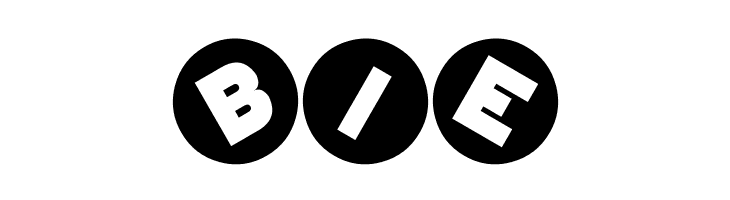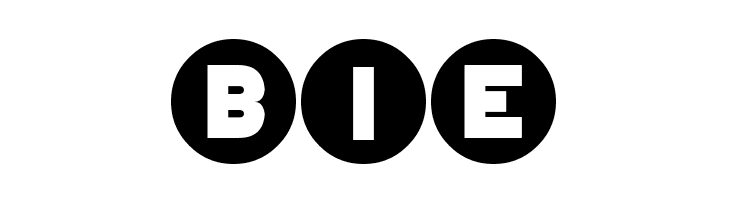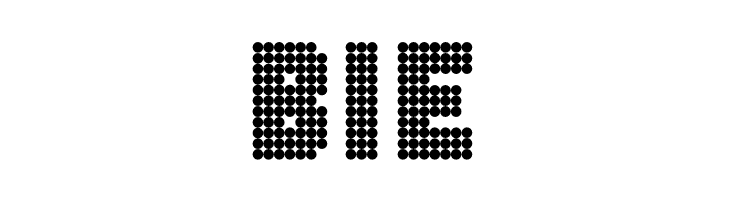
Magic Marbles Italic Font
Font by Darrell Flood
A bold, geometric font with characters enclosed in circles, offering a playful and modern look.
Professor Marbles 1_PersonalUseOnly Font
Font by dcoxy
A bold, bubble-like font with rounded, outlined characters.
Lost Marbles Font
A playful, dotted font with a unique and modern style.
Magic Marbles Font
Font by Darrell Flood
A bold, circular font with geometric, modern styling.
I HAVE LOST MY MARBLES Font
Font by
spideraysfonts
A bold, dotted font with a playful, digital appearance.
Professor Marbles 2_PersonalUseOnly Font
Font by dcoxy
A playful, bold font with rounded, whimsical characters.
Professor Marbles 3_PersonalUseOnly Font
Font by dcoxy
A bold, rounded font with a playful and friendly style.
Marbles Trick_PersonalUseOnly Font
A playful, hand-drawn font with rounded edges and consistent stroke width.
Marbles Trick 1_PersonalUseOnly Font
A playful, rounded font with smooth lines and a friendly appearance.
IHAVELOSTMYMARBLES Font
A bold, dotted font with a pixelated, retro style.